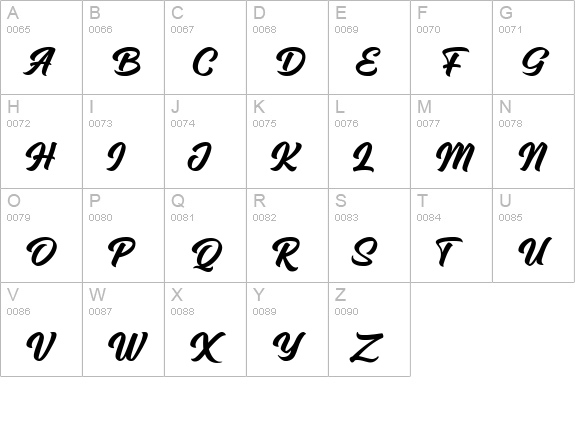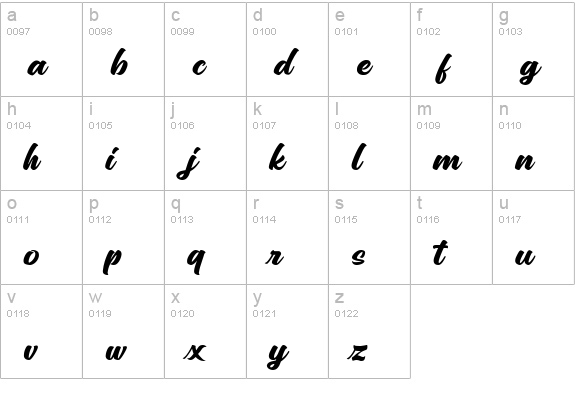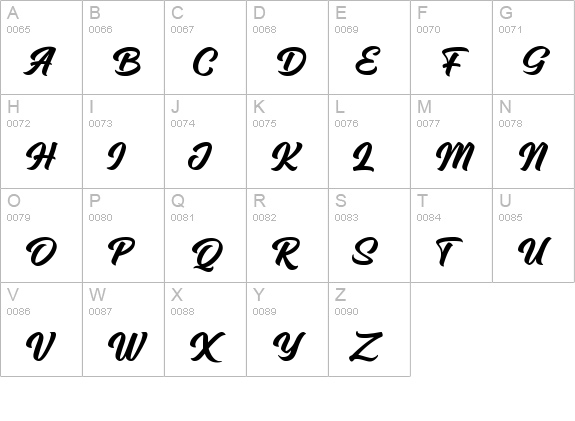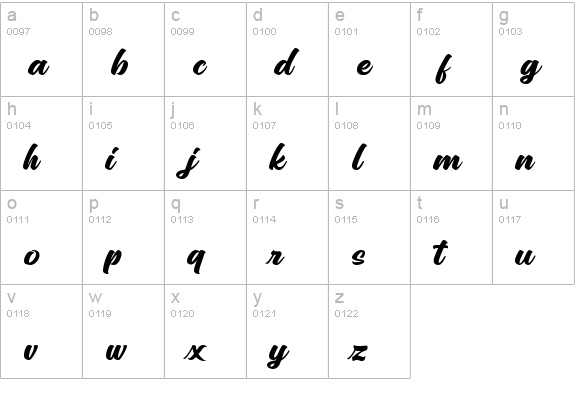
Sinethar Bold Script is a strong, high-contrast variant in the Sinethar typeface family \xE2\x80\x94 well suited to headlines, attention-grabbing titles, and strong calls-to-action.
Introducing Sinethar Bold Script font, a stunning typeface that exudes elegance and sophistication. This font is perfect for creating eye-catching designs that demand attention. Sinethar Bold Script features beautifully crafted characters with a bold and dynamic flair, making it ideal for various projects such as branding, advertising, invitations, and more.